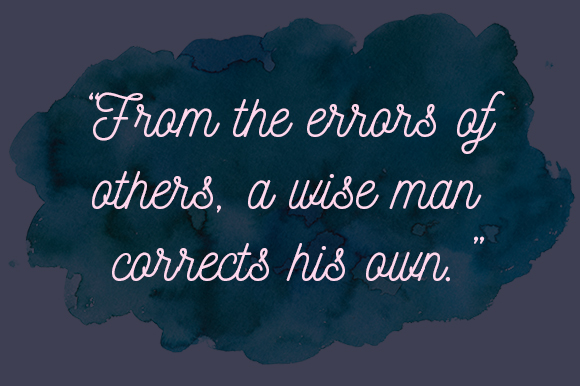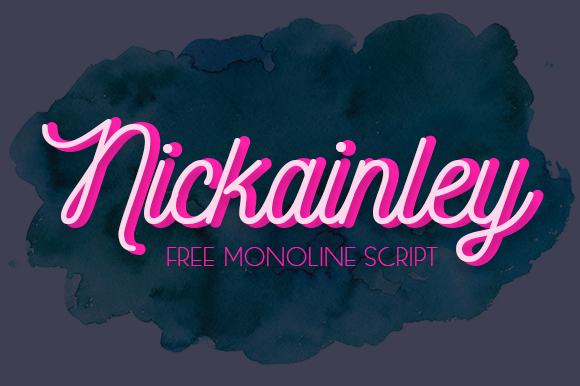
HomePersonal Use FreeNickainley Personal Use Free Nickainley FacebookXPinterestWhatsApp 1 of 2 About Nickainley Font Nickainley is a free monoline handwritten script font with a touch of classic and vintage appeal. This is the perfect, modern headline font that is both edgy and timeless. DOWNLOAD ON CREATIVE FABRICAThis font is sold and delivered by Creative Fabrica. Font Canyon may earn a commission if you buy through this link. People also explored Gossamer House Doodles Prep Font Bokeseni Black Font Shintia Font Forestry Font Minimalist Font Monilka Southis Font Globoys Racing Font 509 0 TagsNickainley Font Previous articleLost TreasureNext articleTerm Free LEAVE A REPLY Cancel reply Comment: Please enter your comment! Name:* Please enter your name here Email:* You have entered an incorrect email address! Please enter your email address here Website: Save my name, email, and website in this browser for the next time I comment. Personal Use Free Good Times Personal Use Free Read more about this font Little Pigeon Personal Use Free Read more about this font Midnight Show Personal Use Free Read more about this font Machine House Personal Use Free Read more about this font BLOG Free vs Paid Fonts: Why Investing in Premium Fonts Is Worth It Free vs Paid Fonts: Why Premium Fonts Are Worth It in 2025 The debate of free vs paid fonts continues in the design world. While... To increase your work productivity, choose the most readable fonts. Modern Sans-Serif Fonts That Brands Love in 2025 Top 7 Google Fonts Alternatives for Faster and Privacy-Friendly Web Design (2025)